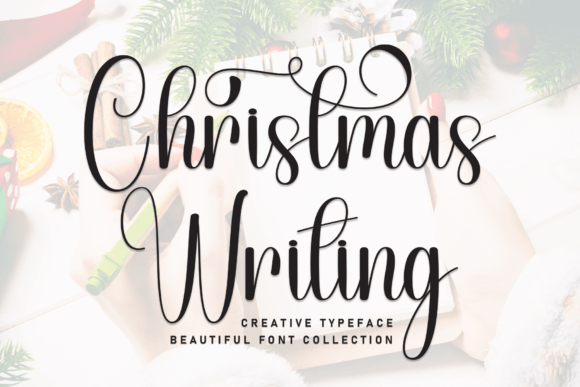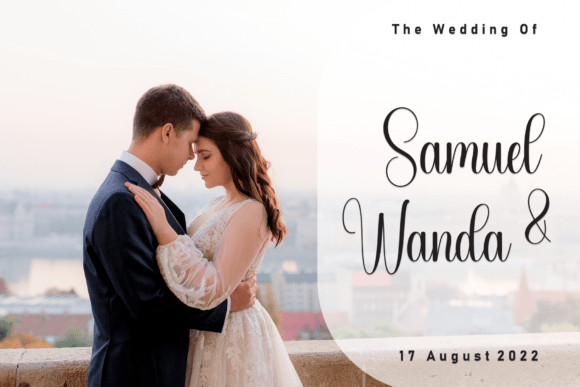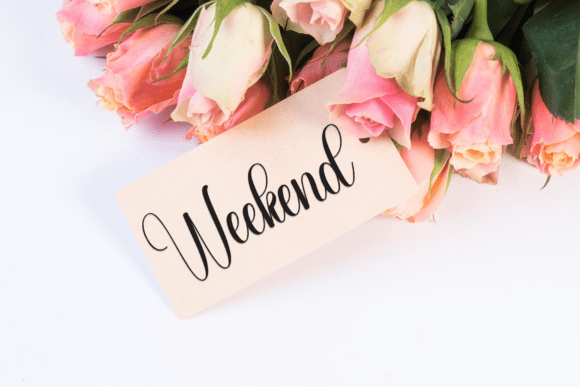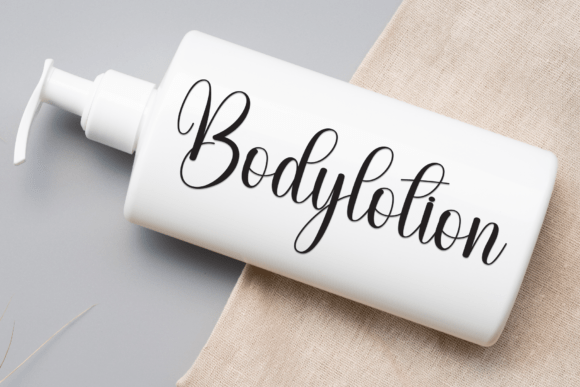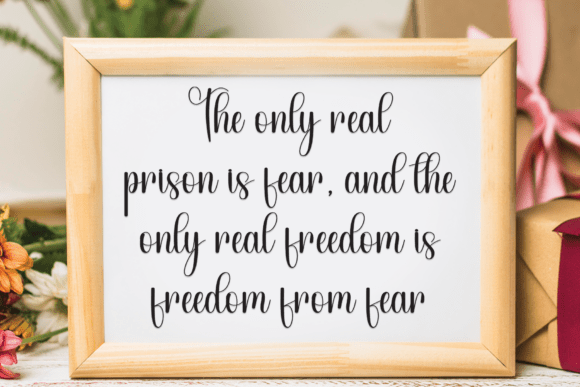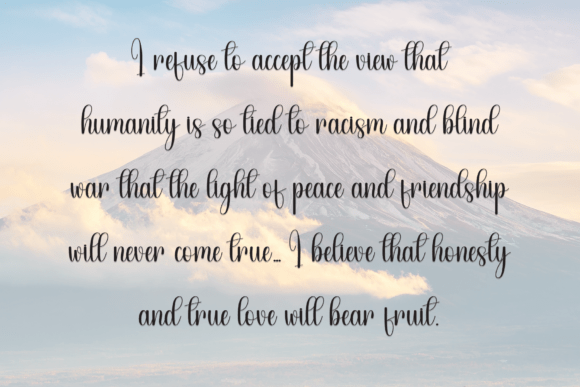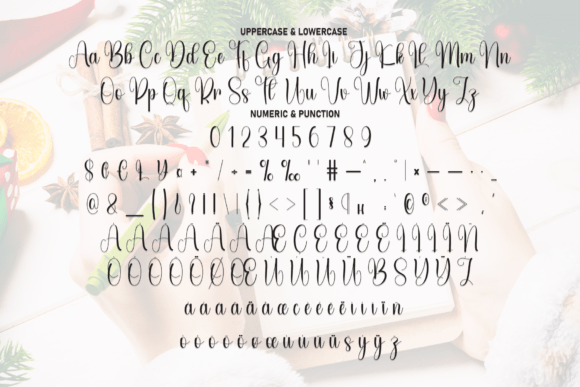
The Magic of Christmas Writing Font
Have you ever found yourself sitting at your desk, surrounded by blank sheets of paper and a million ideas swirling in your head? The creative moment hits, and you know exactly what you want to create – something special, something unique, something that captures the essence of the holiday season. For designers, this moment is a siren’s call, beckoning us to bring our imagination to life.
That’s where our Christmas Writing Font, affectionately called “Sweet and Friendly,” comes in. This hand-drawn display font is the perfect companion for crafting exquisite designs that exude joy and uniqueness. Whether you’re creating wedding invitations or imaginative greeting cards, this font injects vitality into your work, turning the mundane into the magnificent.
As a designer, you know how valuable a versatile font like “Sweet and Friendly” can be. Its playful charm and vibrant character make it a delightful feature for any project, and its quirky elements add a dash of fun to your work. With this font, you can create designs that are truly one-of-a-kind, making every project feel uniquely personal.
Key Features of Christmas Writing Font
- Font Style: The Christmas Writing Font is a decorative, handwritten font, ideal for adding a festive touch to holiday-themed designs and projects.
- Unique Characteristics: Features a distinctive, handwritten style with flourishes and ornaments, adding a touch of elegance and whimsy to holiday designs.
Christmas Writing Font Review
As a designer, I was excited to try out the Christmas Writing Font, hoping to add some festive flair to my holiday projects. ✨ The font does deliver on its promise of a fun, playful feel, making it perfect for social media graphics, party invitations, and other seasonal designs.
The font’s unique, handwritten style is sure to grab attention, and the included ornaments and decorations add a nice touch to any design. ✨ The font is also highly customizable, allowing you to adjust the size, color, and spacing to fit your project’s needs.
However, there are a few limitations to consider: ⚠️ The font can be a bit overwhelming if used in large quantities, and some of the ornaments may not be compatible with all design programs. Additionally, the font’s irregular shape and size can make it difficult to use for text-heavy designs.
Overall, I think the Christmas Writing Font is a great addition to any designer’s toolkit, especially during the holiday season. While it may have some limitations, its unique style and customization options make it a valuable resource for anyone looking to add some festive flair to their designs.
- Unique, handwritten style perfect for holiday projects
- Highly customizable for a range of design needs
- Included ornaments and decorations add a nice touch
- May be overwhelming if used in large quantities
- Some ornaments may not be compatible with all design programs
Christmas Writing Font: A Practical Application Guide
The Christmas writing font is perfect for creating festive holiday cards, gift tags, and decorations. It’s also great for adding a touch of holiday cheer to your social media posts and marketing materials. Some tips to get the most out of this font include:
Q: Can I customize the Christmas Writing Font to fit my design needs?
Yes, the Christmas Writing Font can be customized to fit your design needs. You can adjust the font color, size, and style using most design software. Additionally, some design software allows you to create custom font variations, such as bold, italic, or condensed styles. However, it’s essential to note that customizing the font may require advanced design skills and software knowledge.